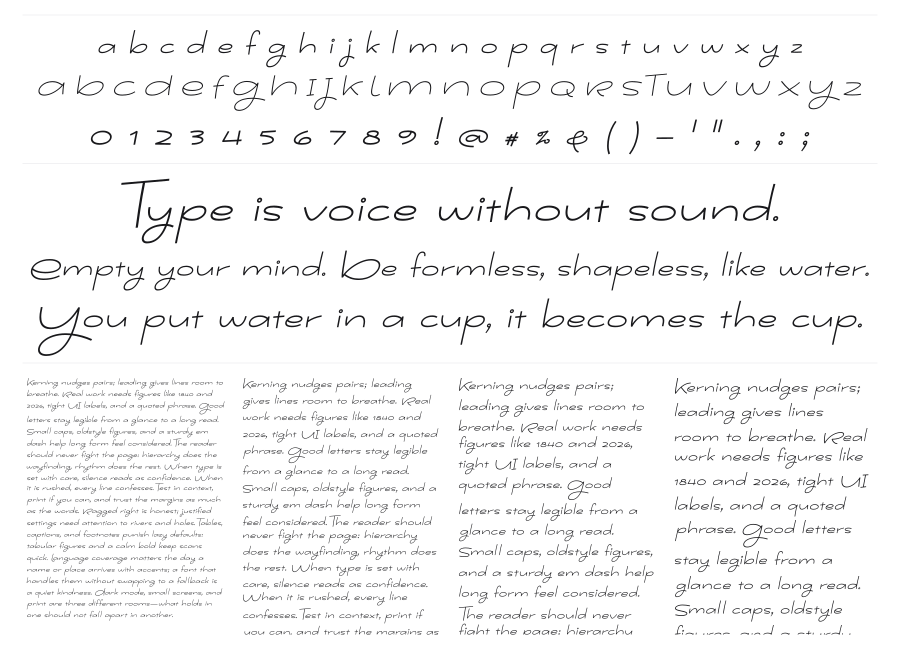
Youthing October Fourteen
Youthing October Fourteen is a delicate signature-style script from 7NTypes with thin, flowing strokes that feel personal and unhurried. The lightweight letterforms carry a feminine elegance without looking overly styled, reading more like actual handwriting than a polished calligraphic exercise. Best for branding, invitations, and editorial accents where you want something that feels intimate and refined.